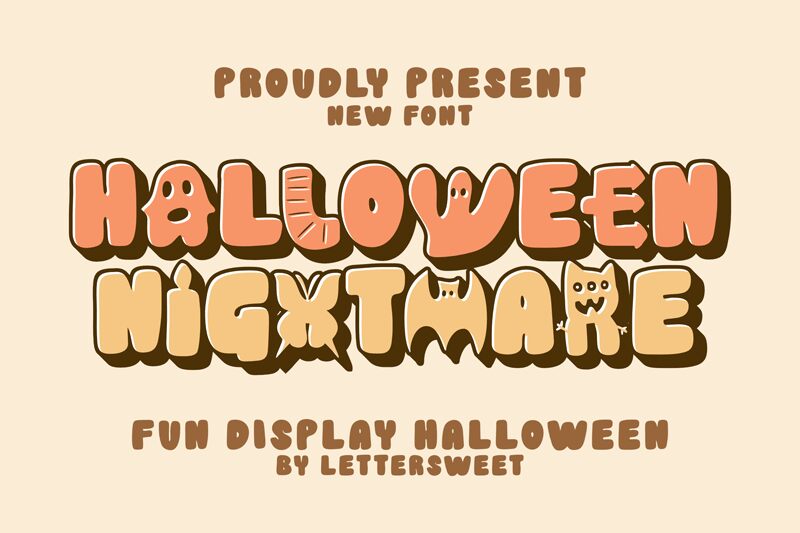
Halloween Nightmare, designed by Lettersweet Studio, is an extra-bold and spooky decorative font perfect for all your Halloween projects.
With its cute letters and bold style, this font is ideal for creating a creepy atmosphere in your horror movie posters, t-shirts, and Halloween crafts. Whether you're designing party invitations or creating haunting social media posts, Halloween Nightmare will add a spectacular touch to every project. Its masterful design guarantees that your creative ideas will reach new heights with this font.
Embrace the spirit of Halloween and let Halloween Nightmare bring a touch of frightful fun to your designs!
Halloween Nightmare